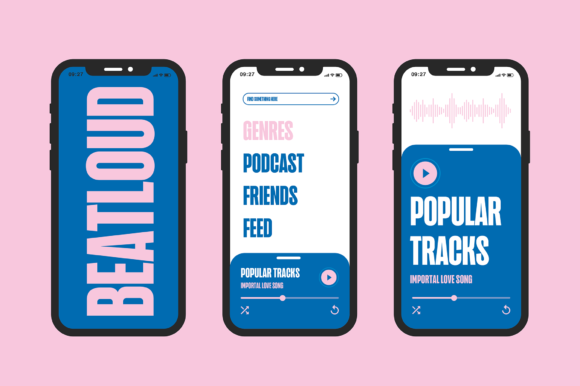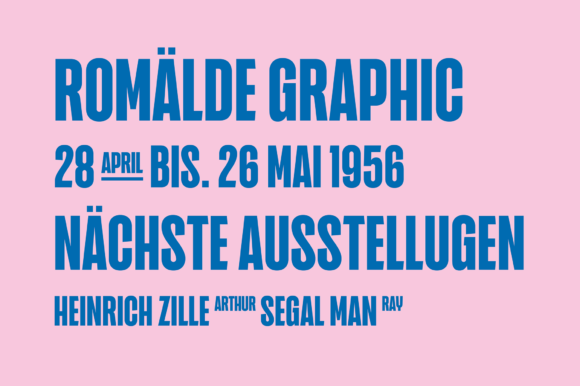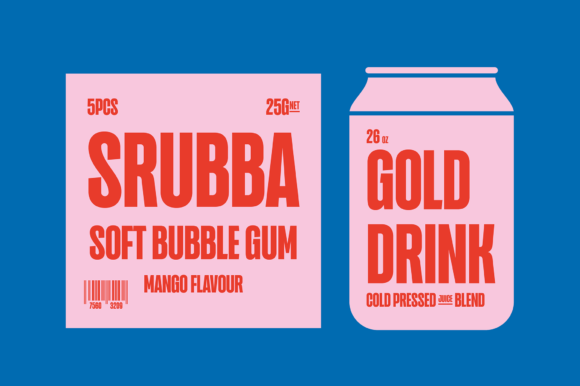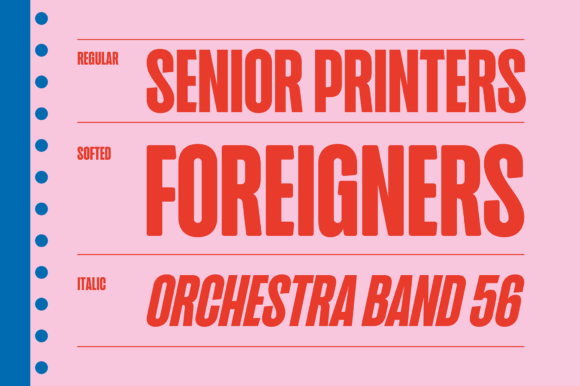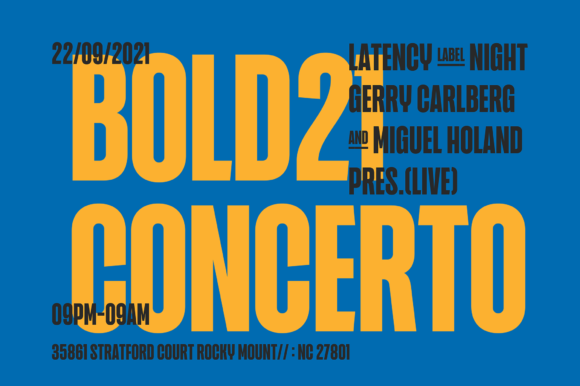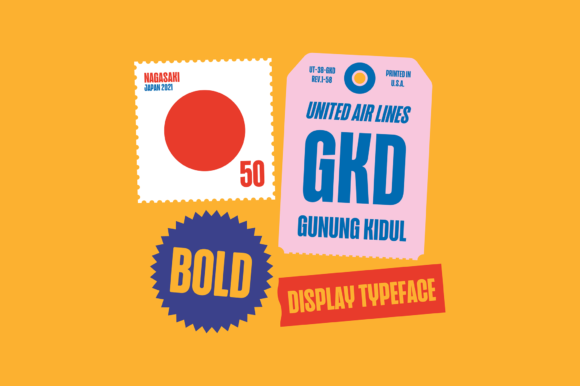
Introduction to Rockids Sharp Font
Remember that moment when a single design element brings your entire creative project to life? For designers, it’s the little things that make all the difference. Whether you’re crafting a logo, creating a social media graphic, or designing a stunning poster, the right font can elevate your work from ordinary to extraordinary.
That’s where the Rockids Sharp Font comes in – a bold, thick-lettered display font that’s sure to grab attention. With its high-quality design, this font is a valuable addition to any designer’s library. And the best part? It’s available for free download, making it an accessible design resource for creatives of all levels.
Key Features of Rockids Sharp Font
- High quality, crisp font design ideal for creative projects requiring a bold and modern aesthetic.
- Features a transparent background, allowing for seamless integration into your design project.
- Designed with a high resolution (300 DPI) to ensure clear and sharp text, even at large sizes.
- Includes a range of font sizes and styles, making it a versatile addition to your design resource library.
Honest Review: Rockids Sharp Font
I recently came across the Rockids Sharp Font, a design resource that has both impressed and left me with some reservations. The first thing that caught my eye was the clean and modern aesthetic of this free download.
- ✨ High-quality design: The Rockids Sharp Font has a crisp and polished look that makes it perfect for creative projects.
- ✨ Versatile: This font is suitable for a wide range of design applications, from branding to editorial content.
- ✨ Transparent background: The font’s transparent background makes it easy to layer and combine with other design elements.
- ⚠️ Limited character set: The Rockids Sharp Font has a relatively small character set, which may not be suitable for longer text blocks.
- ⚠️ Not ideal for small text: Due to its clean and minimalist design, this font may not be the best choice for small text sizes.
Overall, the Rockids Sharp Font is a solid design resource that is well-suited for creative projects. While it may not be perfect for every design application, it’s definitely worth considering for your next design project.
Rockids Sharp Font is ideal for creative projects that require a high-quality, modern font. Use it for logos, headings, and titles to give your project a professional look. The font’s clean design makes it perfect for presentations, infographics, and digital displays.